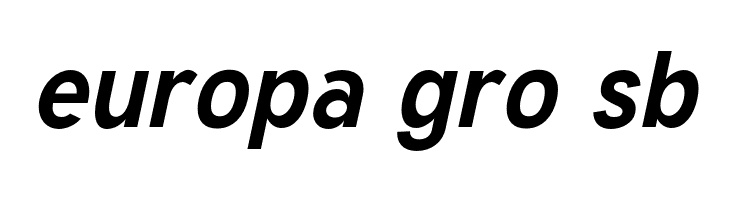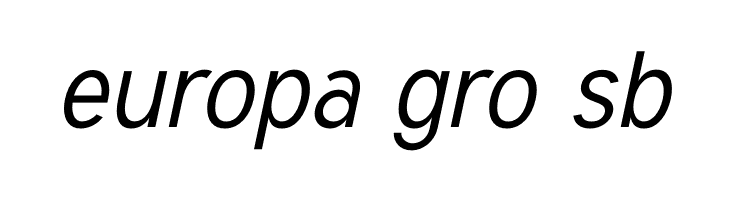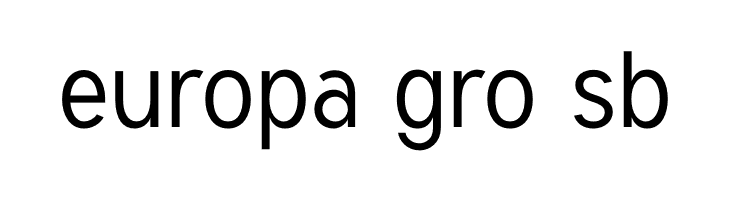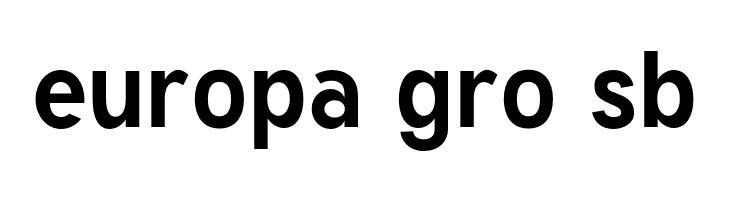
( Fonts by Thatcher Ulrich )
A bold, italicized font with a strong and dynamic presence.
( Fonts by Thatcher Ulrich )
A modern, italic sans-serif font with clean lines and excellent readability.
( Fonts by Thatcher Ulrich )
A clean, modern sans-serif font with balanced spacing and legible characters.
( Fonts by Thatcher Ulrich )
A bold, clean sans-serif font with excellent legibility and impact.